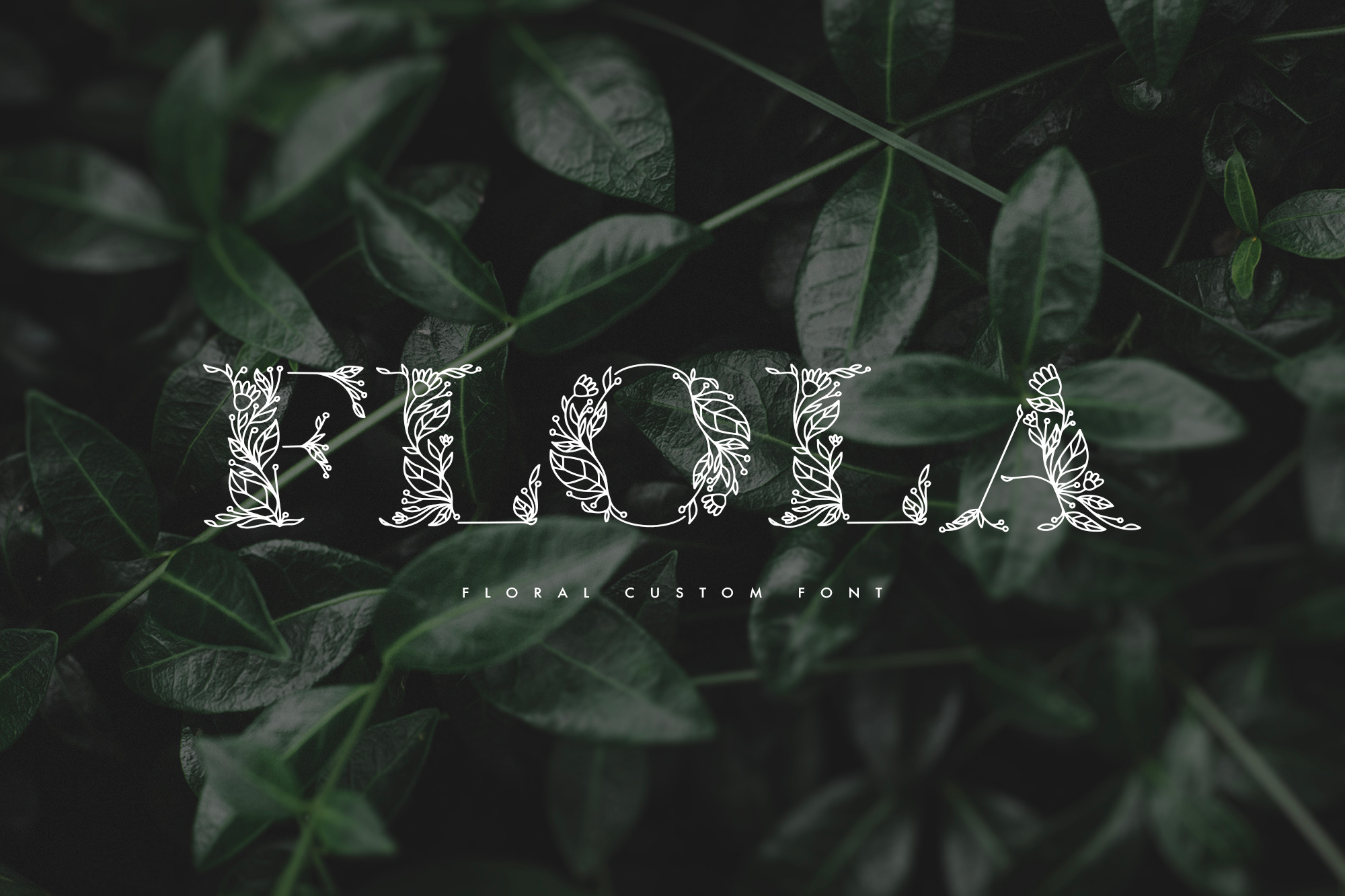
Flola Hand Drawn Font
This font is drawn with a composition of leaves and flowers so that it forms like letters. We do not provide lowercase and number versions, because these fonts are used for titles and logos. By using this hand drawn font, you will get a classy and luxury design